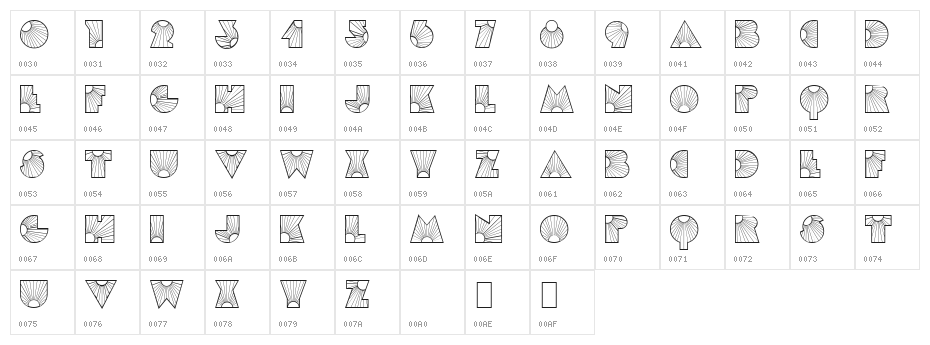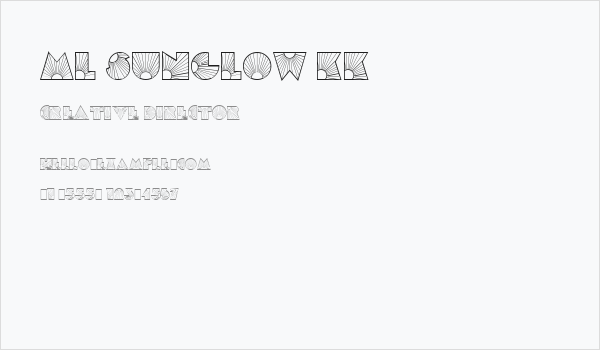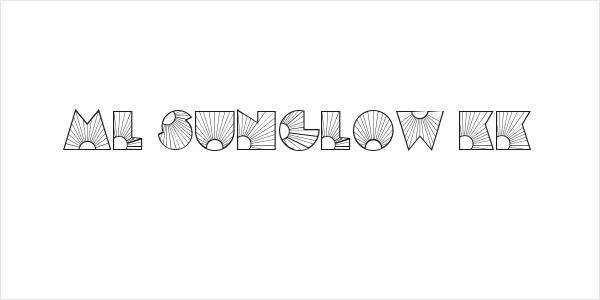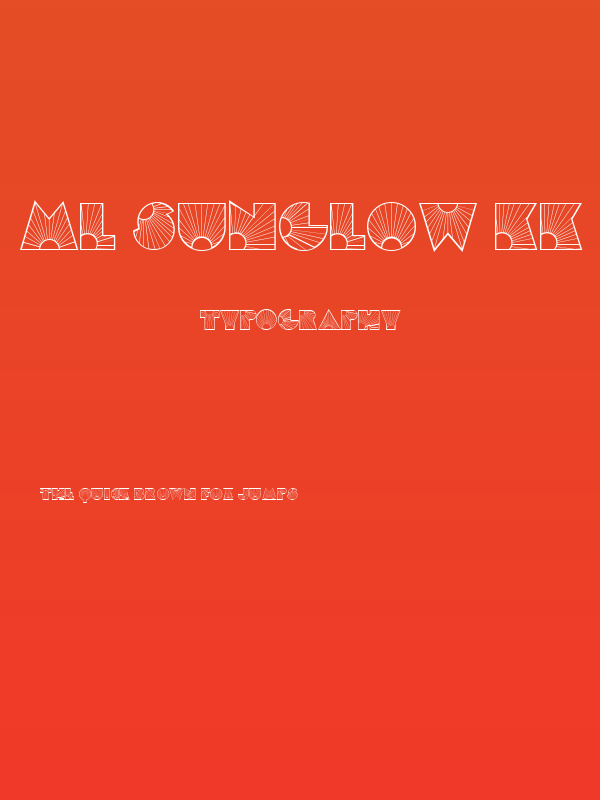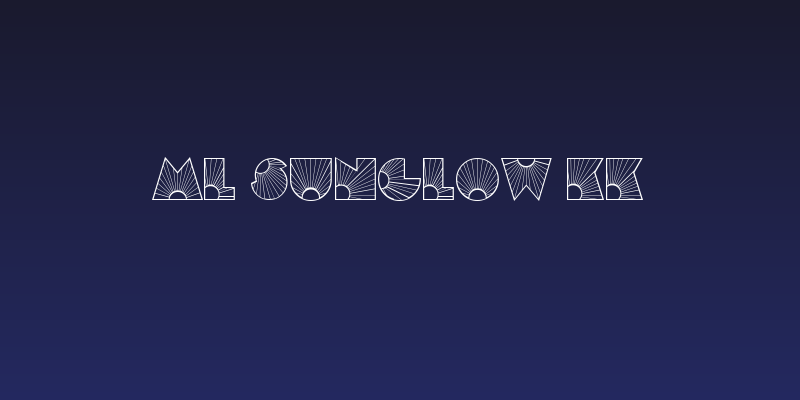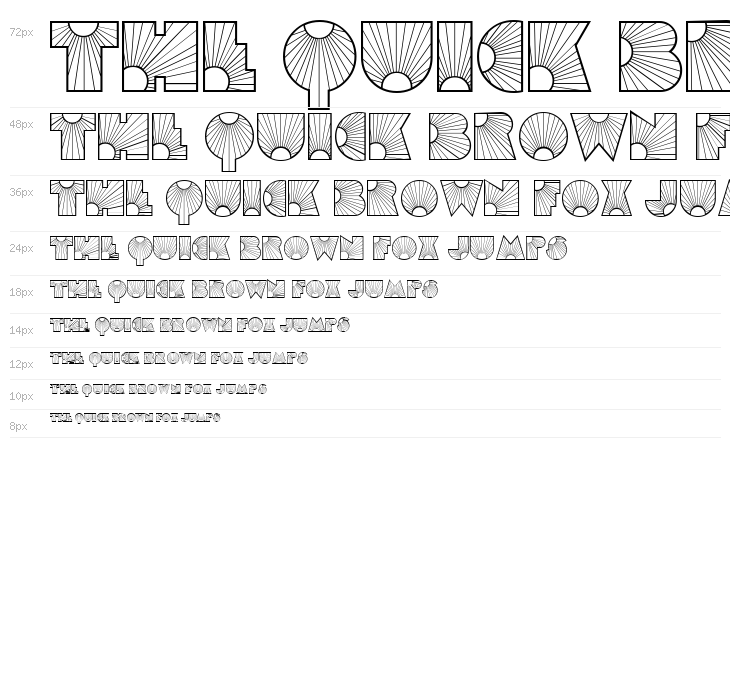
ML Sunglow KK Font
ML Sunglow KK Description
This font features a unique and decorative style with intricate line patterns filling each character. The design incorporates geometric shapes and radial lines, creating a sunburst effect within the letters and numbers. The characters are bold and eye-catching, making them suitable for standout designs. The uppercase and lowercase letters share a consistent style, with the same patterning applied to numerals and special characters. This font is ideal for projects that require a touch of creativity and artistic flair, offering a visually striking appearance.
Proposed ProjectsIdeal for posters, logos, album covers, and artistic branding projects.